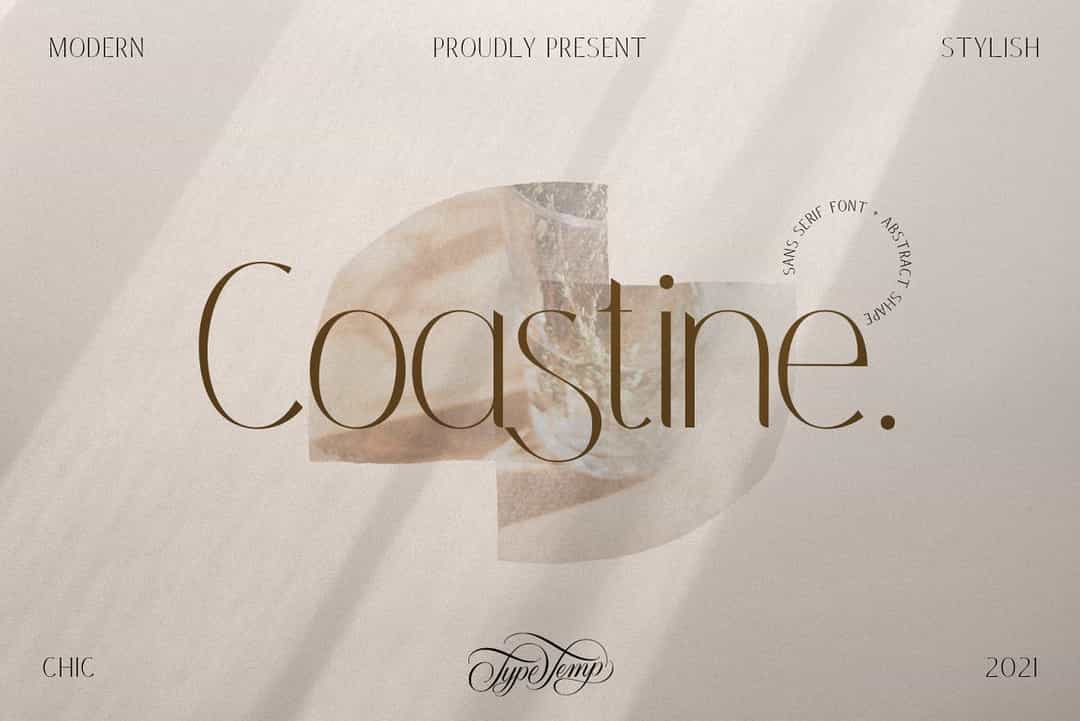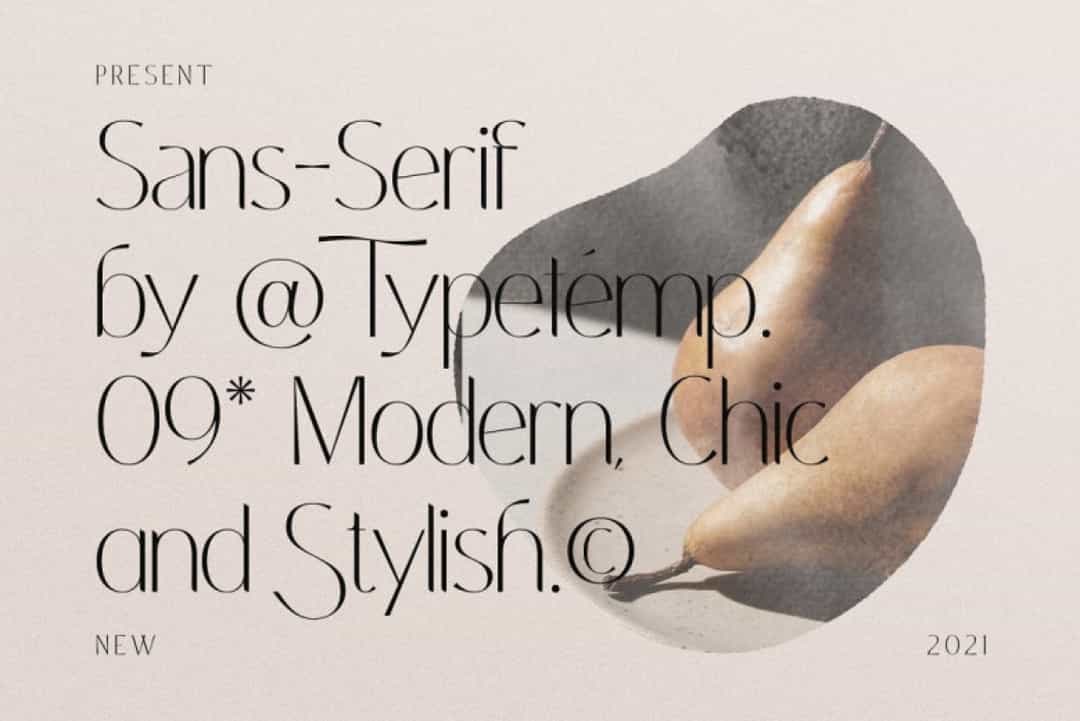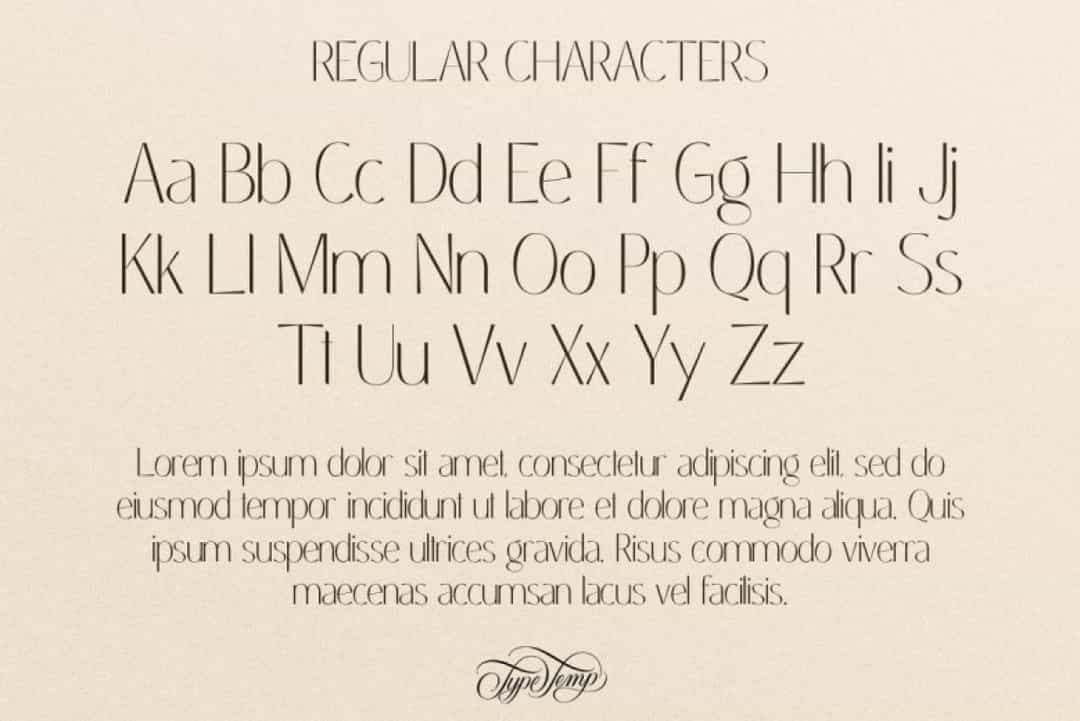
Coastine is a Sans Serif font with both lowercase and uppercase letters, enhanced by hand-crafted fonts made by loving hands. You can access its Open Type features for accessing its large selection of alternative letters and ligatures; select what appeals most from this vast array and create your ideal display font!